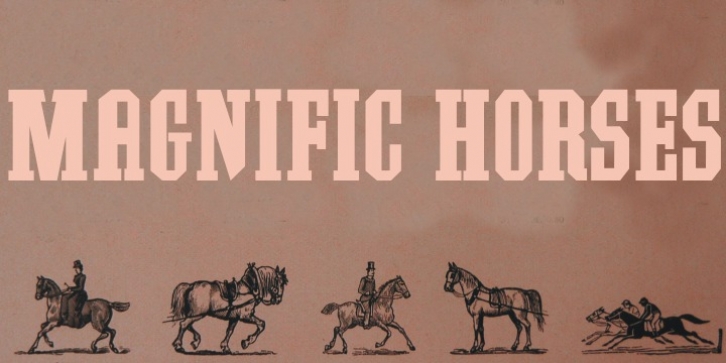
Publisher: Intellecta Design
Southern colonialist is a new slab typeface from Intellecta, based on ancient advertisements from the Wild West of America
Good for titling and display usage; in many styles.